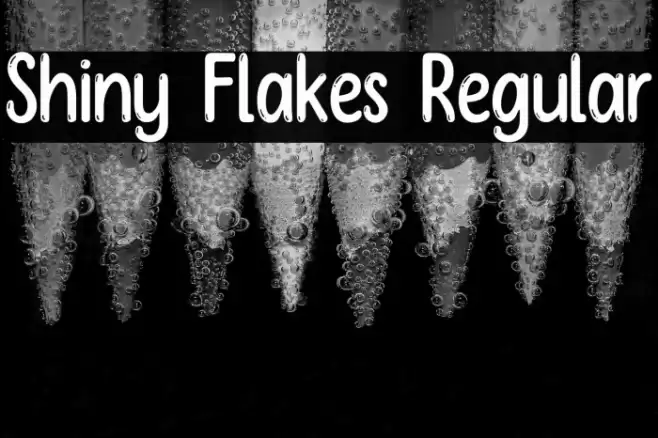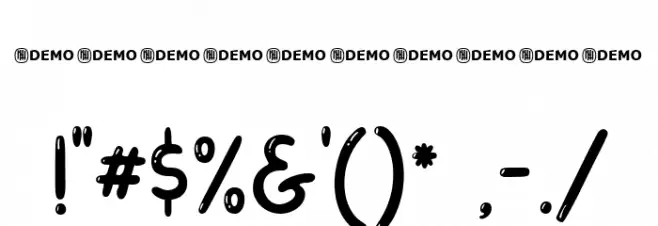
Shiny Flakes Regular Font
Shiny Flakes Regular Description
This font features a playful and whimsical design, characterized by rounded edges and a slightly irregular stroke pattern that gives it a hand-drawn appearance. The letters are bold and have a consistent thickness, creating a uniform look across both uppercase and lowercase characters. The font includes a full set of numerals and a variety of special characters, making it versatile for different uses. Its unique style is enhanced by subtle decorative elements within each letter, adding a touch of creativity and charm.
A playful, hand-drawn style font with rounded edges and decorative elements from Regular fonts.
- Proposed Projects: Ideal for children's books, playful branding, greeting cards, and creative posters.
- Overall Style: Playful, Whimsical
- Use Case: Logos, Posters, Creative projects